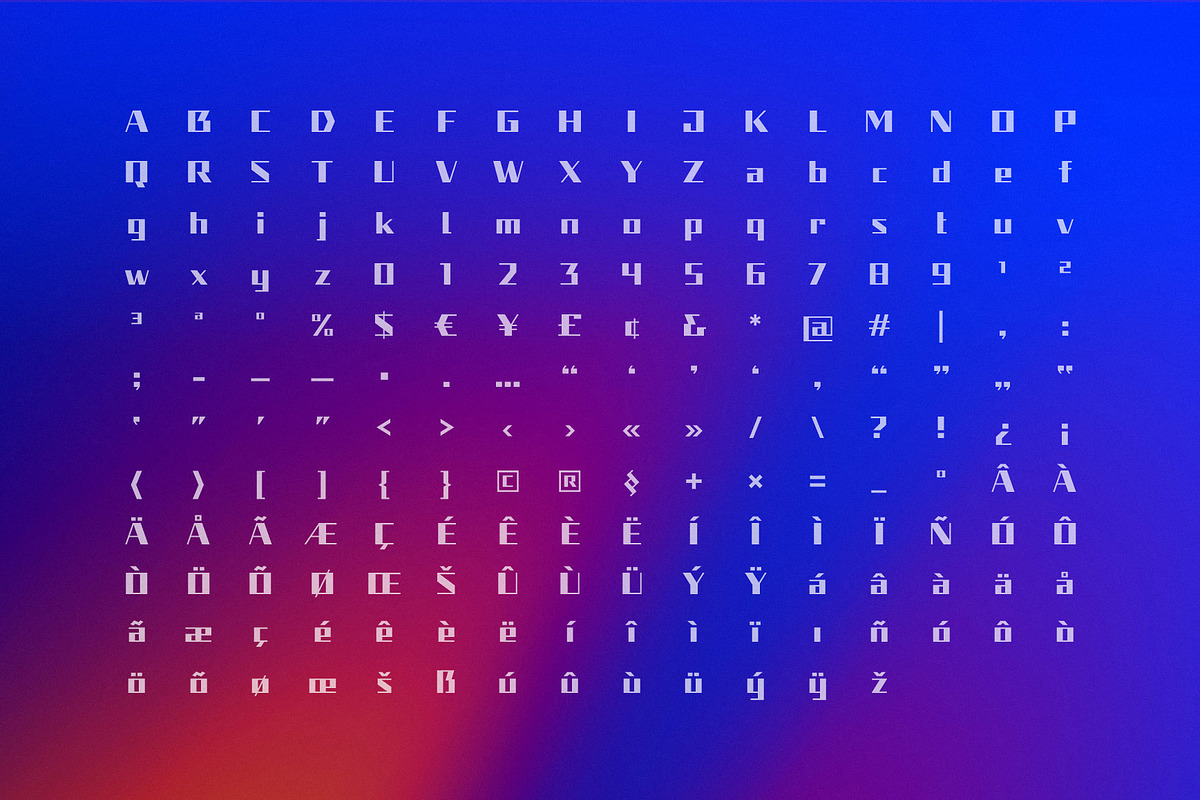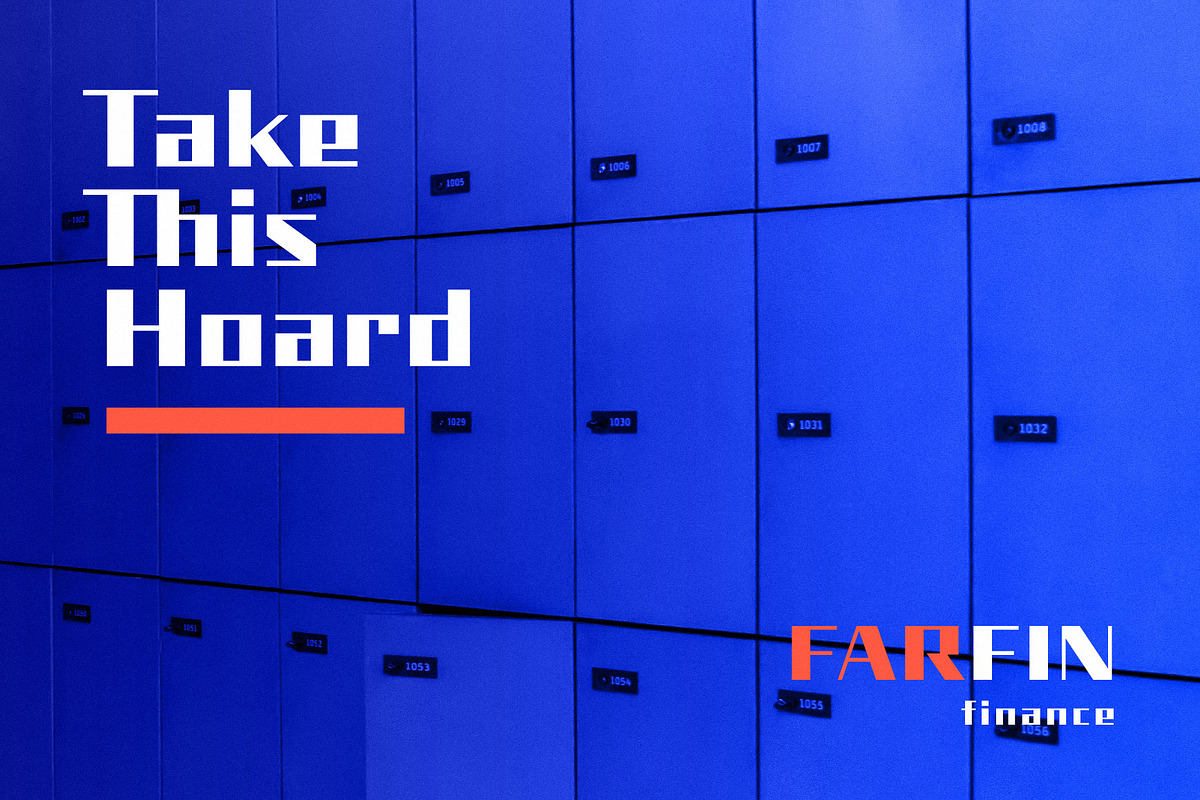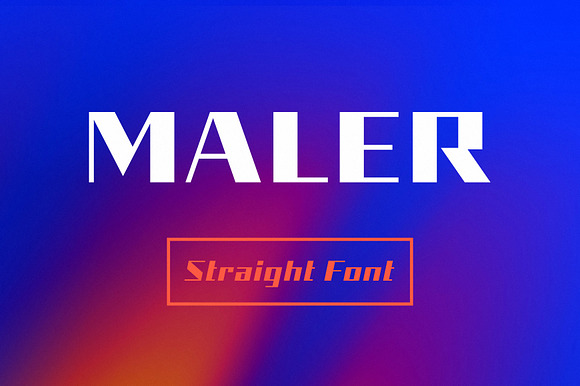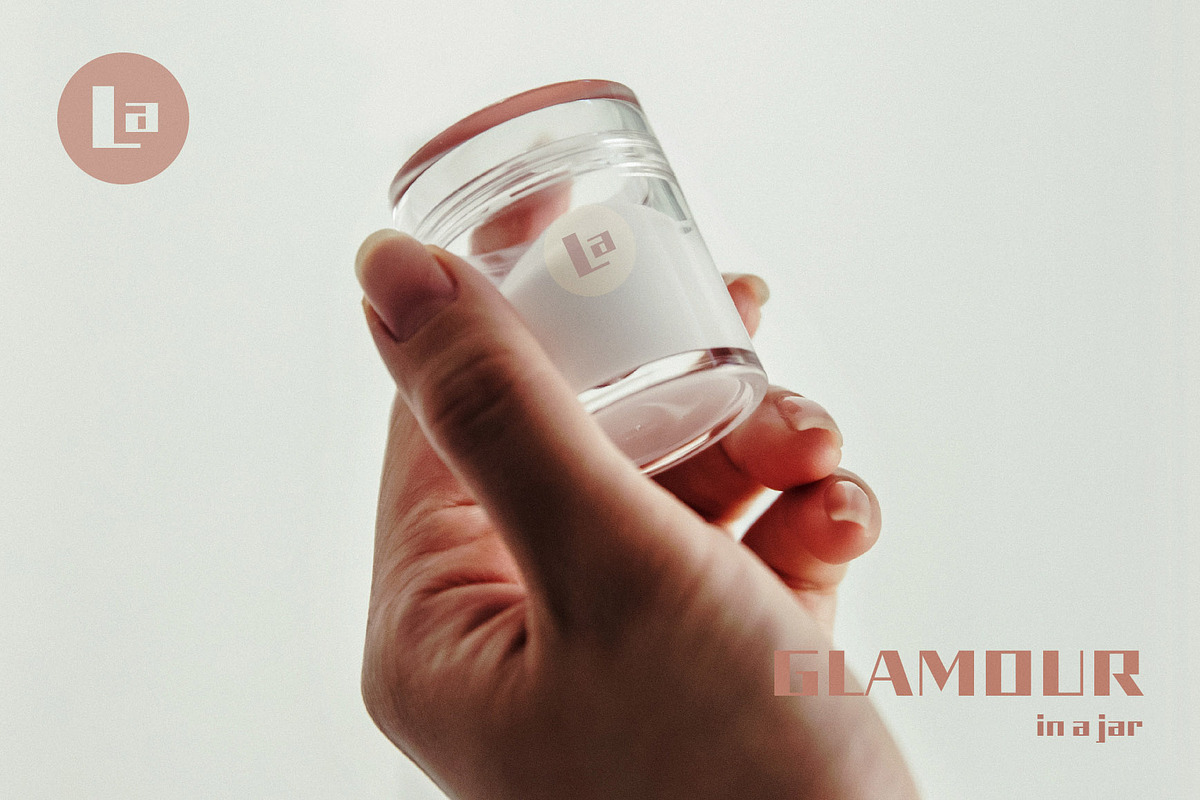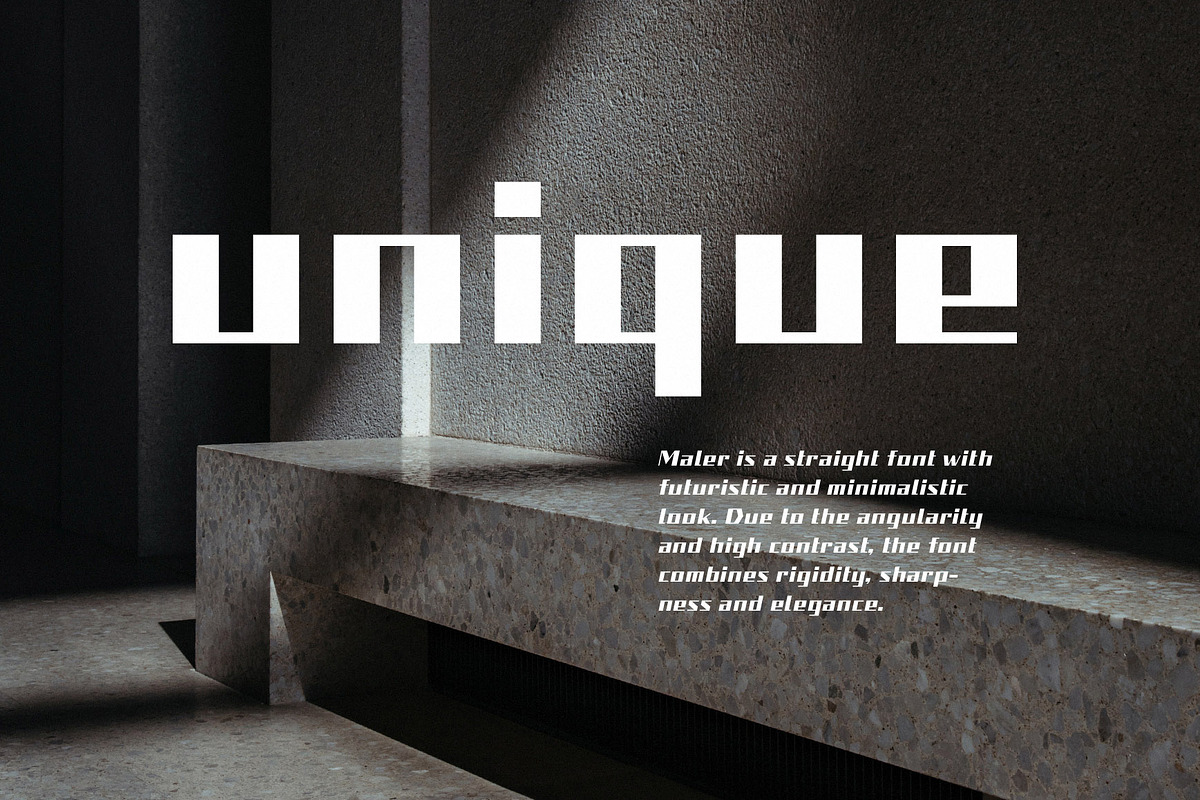
Maler - Straight Font
Maler is a new straight font with futuristic and minimalistic look. Due to the angularity and high contrast, the font combines rigidity, sharpness and elegance. The font is suitable for creating logos, wordmarks, titles, taglines.
- Maler Regular
- Maler Oblique